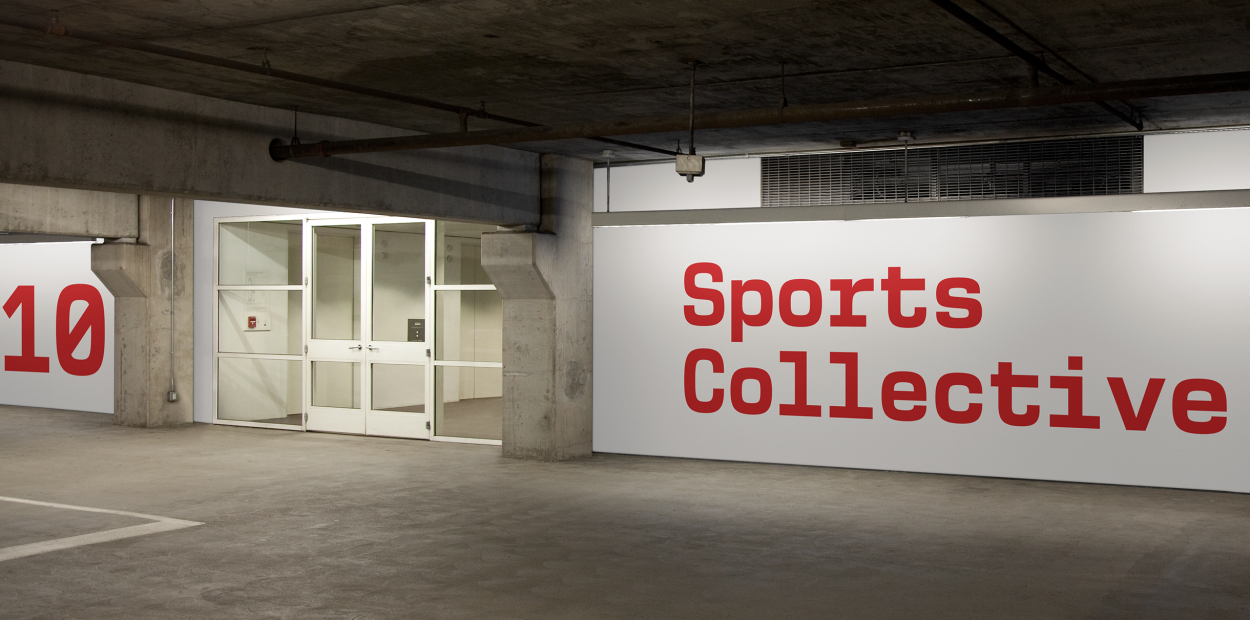
New Science Mono Font | Fixed-Width Square Typeface
New Science Mono is a fixed-width square sans serif font family with the precision of a technical mono and the presence of a brand typeface. Rather than behaving like a neutral coding font, it carries the engineered rhythm of New Science into monospaced typography, giving words, numbers and interface text a structured, contemporary voice.
The family is useful for technology identities, UI, data displays, editorial systems, packaging, captions, specifications and short-form text where alignment, rhythm and authority matter. It has the discipline of a monospace design, but enough character to operate as part of a wider brand language.
A mono for identity, not just code
Many monospaced fonts are designed primarily for programming environments. New Science Mono is different. It is a brand mono: precise, square, systematic and graphic, with the ability to sit beside New Science Standard, Extended and Serif as part of a broader typographic system.